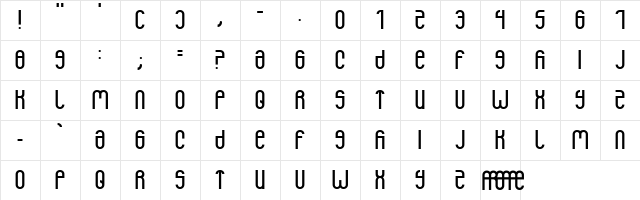
Mountaintop Milk Regular
Design Context for Mountaintop Milk Typeface
Mountaintop Milk is a composed and adaptable typeface that performs quietly and consistently across a wide range of design contexts.